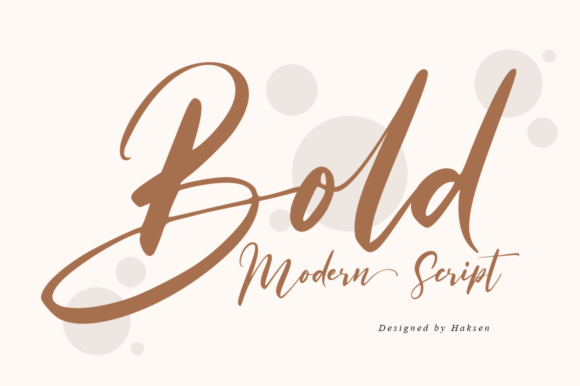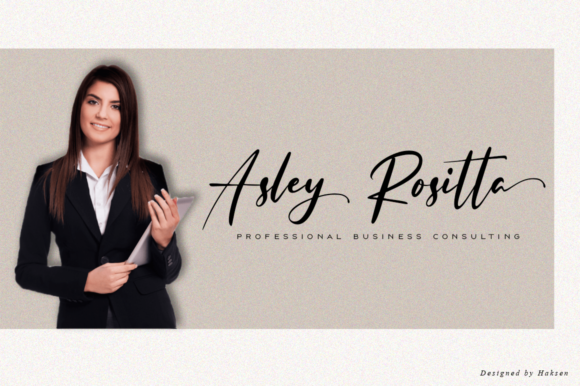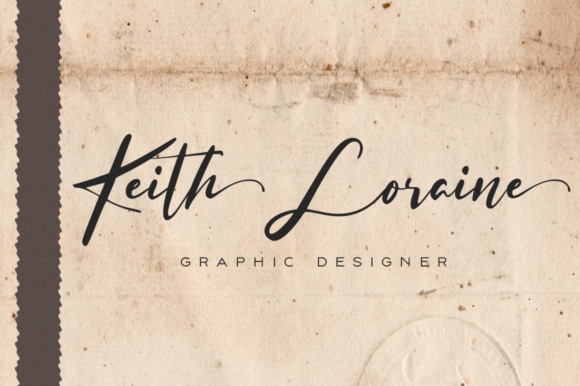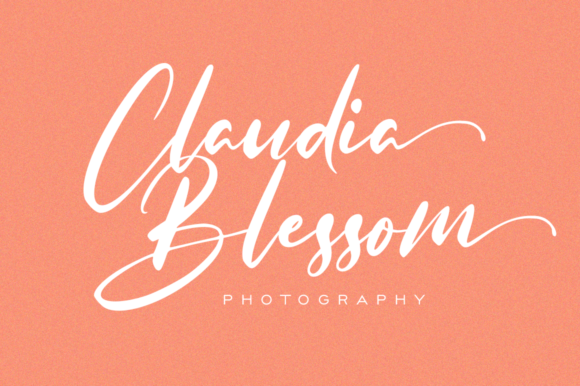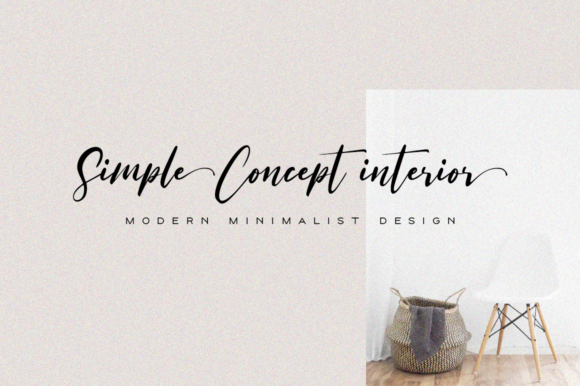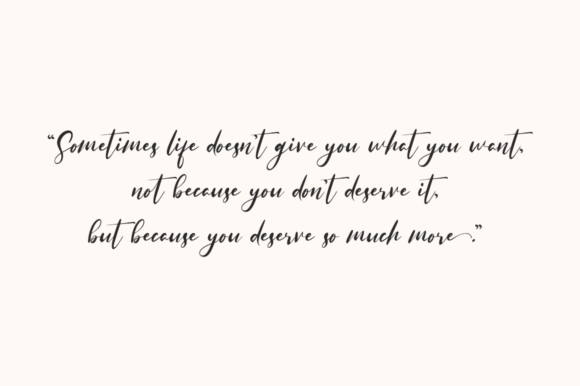
Introduction to Really Distinct Font Font
Fonts play a crucial role in design, and the Really Distinct Font font is a typeface that brings both character and versatility to any project. Whether you’re working on a branding project, a website, or a print design, the Really Distinct Font font offers a unique style that can elevate your work.
Really Distinct looks luxurious, yet sophisticated.
This handwritten font features extended characters that will look particularly adept when used in logos, branding, packaging design, and much more .
Key Features of Really Distinct Font Font
Why Choose Really Distinct Font Font?
The Really Distinct Font font is more than just a typeface – it’s a design tool that helps you communicate your message with style and clarity. Its unique character set and versatile design make it suitable for a wide range of applications, from elegant invitations to bold headlines.
With its carefully crafted letterforms and balanced proportions, the Really Distinct Font font ensures readability and visual appeal across all mediums.
What makes Really Distinct Font font special?
The Really Distinct Font font stands out with its unique design, exceptional readability, and versatility across various design applications.